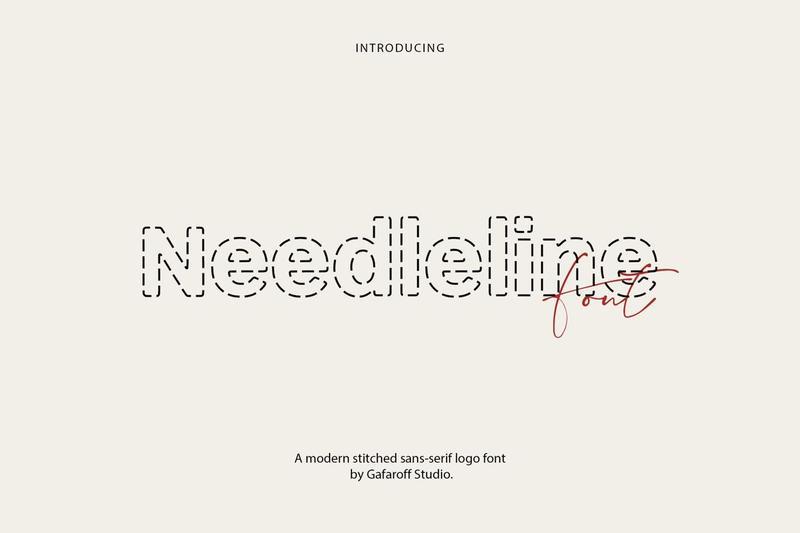
Needleline Font KB9ZFGR
Needleline is a stitched outline font with a clean dashed sewing effect – like embroidery thread and seam lines, but in a modern sans-serif style. Use it as a logo font, label font, or packaging font when you want a handmade, crafted look.
Great for stitched logo design, embroidery branding, sewing labels, craft packaging, handmade tags, boutique branding, quilt/needlework projects, social media titles, and invitations.